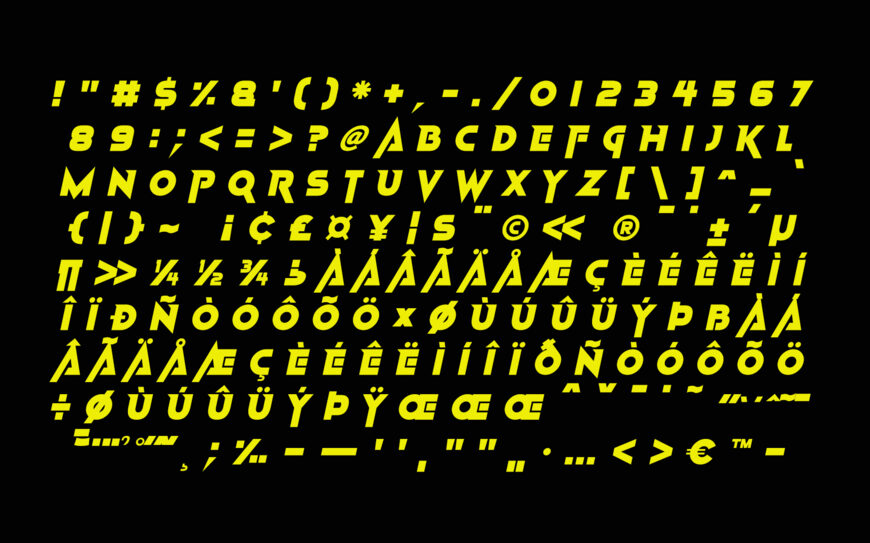
Maximum Voltage Font
Maximum Voltage is a sharp, bold font in a spiky, energetic style. Perfect for modern music, futuristic themes and high tech projects. Includes Regular and Italic.
Designed by: Hawtpixel